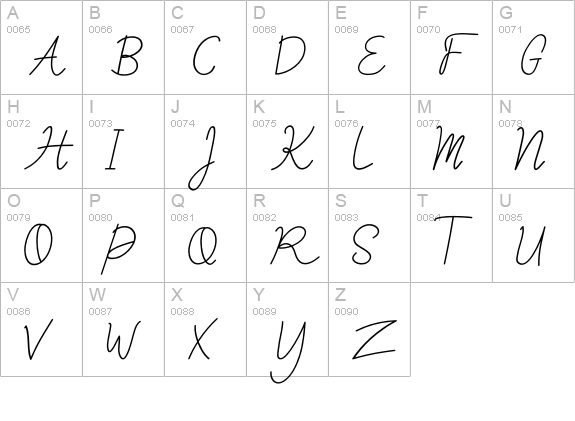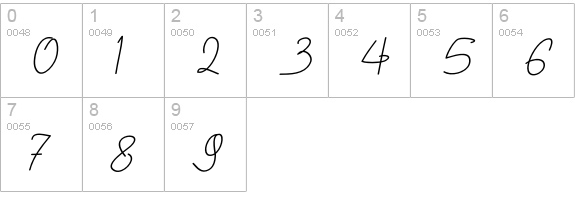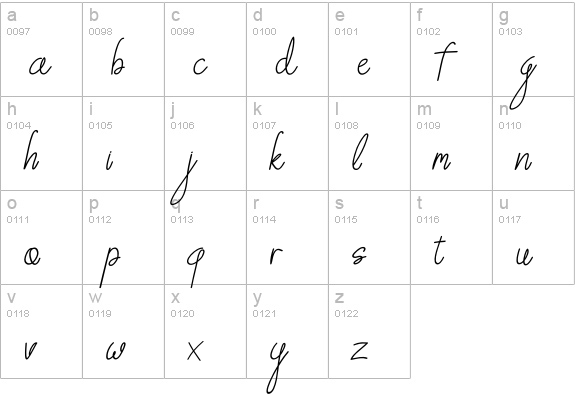
Sweet Petunia is a free for personal use font in the Script > Handwritten category, designed by rifuki. It has been downloaded 515 times and is available for Windows, Mac and Linux.
Sweet Petunia is a charming and whimsical font that will add a touch of playfulness to your designs. With its delicate curves and elegant flourishes, this font exudes a sense of grace and femininity. Perfect for invitations, greeting cards, and other creative projects, Sweet Petunia is sure to make a statement.